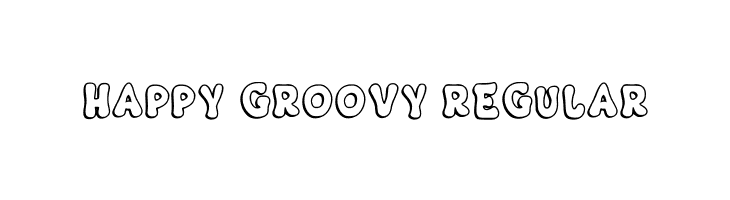
( Fonts by Riki Rudiyanto )
A spooky, playful font with jagged edges and whimsical serifs, perfect for Halloween themes.
A bold, angular font with a spooky, playful Halloween theme.
( Plan Nine Design - formerly at www.pangea.ca/~nine/andrew/inside/type.html )
A playful, spooky handwritten font ideal for Halloween themes.
A hand-drawn font based on sign language gestures.
Hand-drawn ASL finger-spelling font with expressive line art.
( Fonts by Annie de la Vega )
A playful and bold font with a wavy, dynamic style.
( Fonts by Spork Thug Typography - Josh Wilhelm - www.lifewithouttaffy.com/taffy/blog )
A bold, playful font with a whimsical, hand-drawn style.
( Fonts by Tokokoo Studio )
A playful, handwritten font with a casual and friendly style.
A bold, handwritten font with a playful and energetic style.
A bold, playful handwritten font with thick, rounded strokes and a lively appearance.
A playful, outlined font with a shadow effect, perfect for festive designs.
A whimsical and decorative font with bold, flowing letterforms and artistic swirls.
A playful and elegant script font with flowing cursive letters and subtle flourishes.
A playful and whimsical script font with elegant loops and swirls.
( Fonts by Bangkit Tri Setiadi )
A playful, bold font with rounded, chunky characters ideal for children's projects.
A playful, hand-drawn font with a bold, cartoonish style.
A playful, hand-drawn font with rounded, friendly characters.
A playful, heart-accented decorative font with bold, rounded characters.
( Fonts by Typehand Studio )
A playful, bold font with rounded edges and a friendly style.
( Fonts by Joseph Dawson )
A playful, bold font with rounded edges and a hand-drawn marker style.
( Fonts by Joseph Dawson )
A playful, handwritten italic font with bold, rounded strokes.
A tall, narrow font with a modern, geometric design and consistent stroke width.
A modern, elegant script font with flowing, cursive characters.
( Fonts by Kong Font )
A playful, bold font with rounded, thick strokes and a whimsical, friendly appearance.
( Fonts by Bluestype Studio )
A playful, bold, handwritten font with a whimsical and inviting style.
( Fonts by Yadhie Setiawan - typelinestudio.com - Personal-use only. For commercial use please contact owner. )
A playful, bold font with rounded, hand-drawn letterforms.
A playful, tall, and narrow font with a casual and approachable style.
A playful, handwritten font with bold, rounded strokes and a lively, informal style.
( Muammar Khalid - creativemarket.com/kang1993 )
A playful, handwritten font with tall, narrow letters and rounded edges.